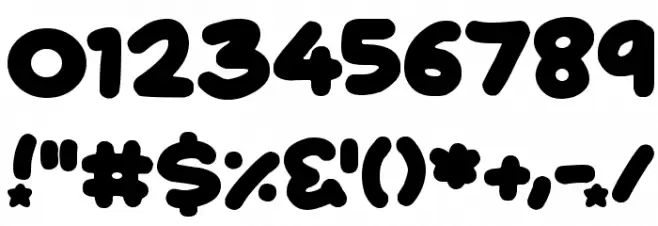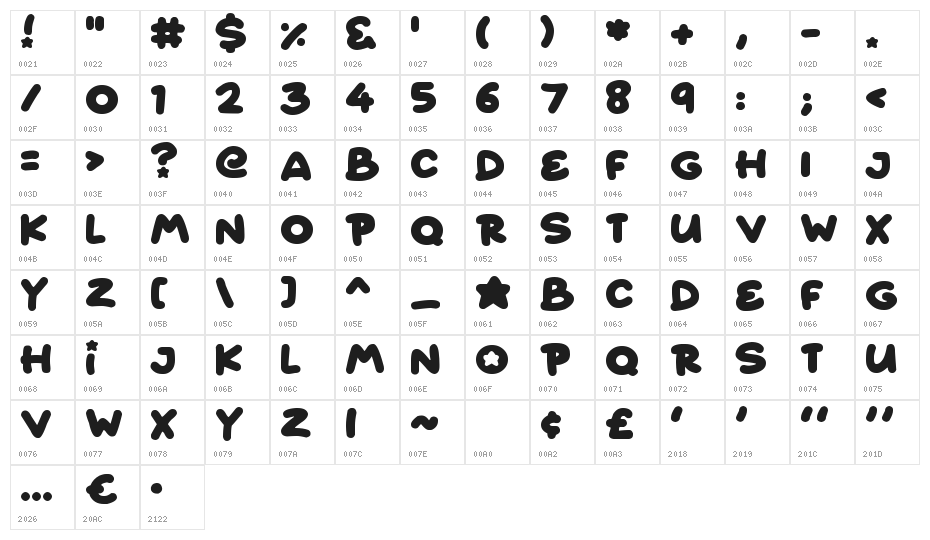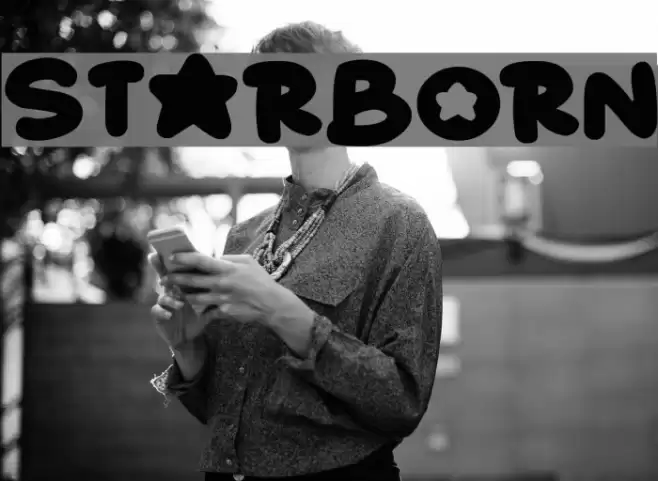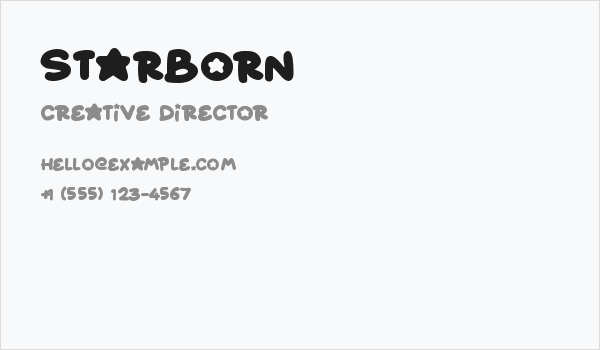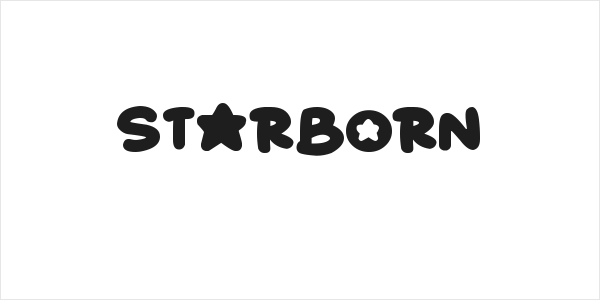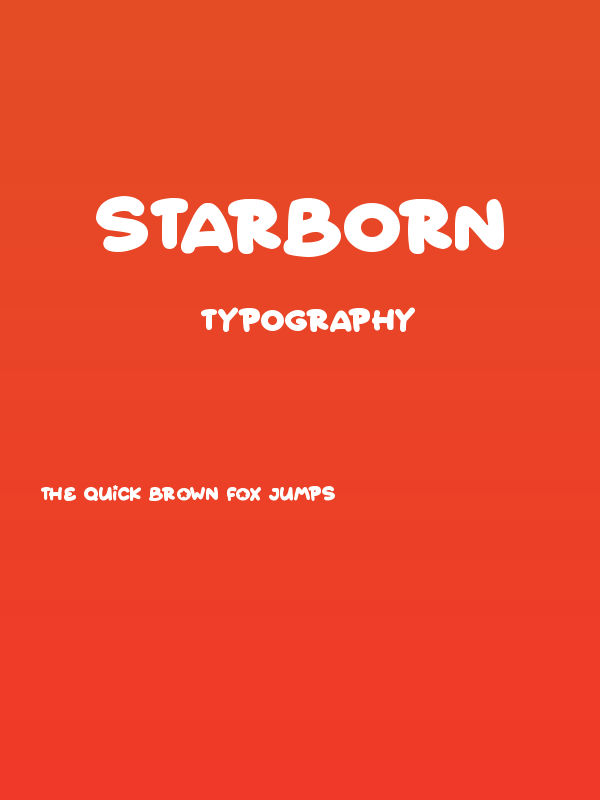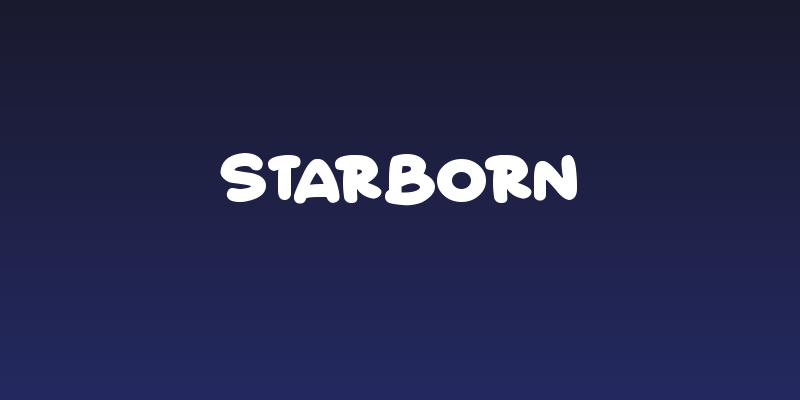
Starborn Font
Starborn Description
This playful and bold font features rounded, bubbly characters that exude a sense of fun and creativity. The letters are thick and have a cartoonish quality, making them stand out with a whimsical flair. The inclusion of star shapes within some characters adds a unique touch, enhancing its decorative appeal. The numbers and special characters maintain the same playful style, ensuring consistency across all glyphs. This font is perfect for projects that require a lively and engaging aesthetic.
Darrell Flood